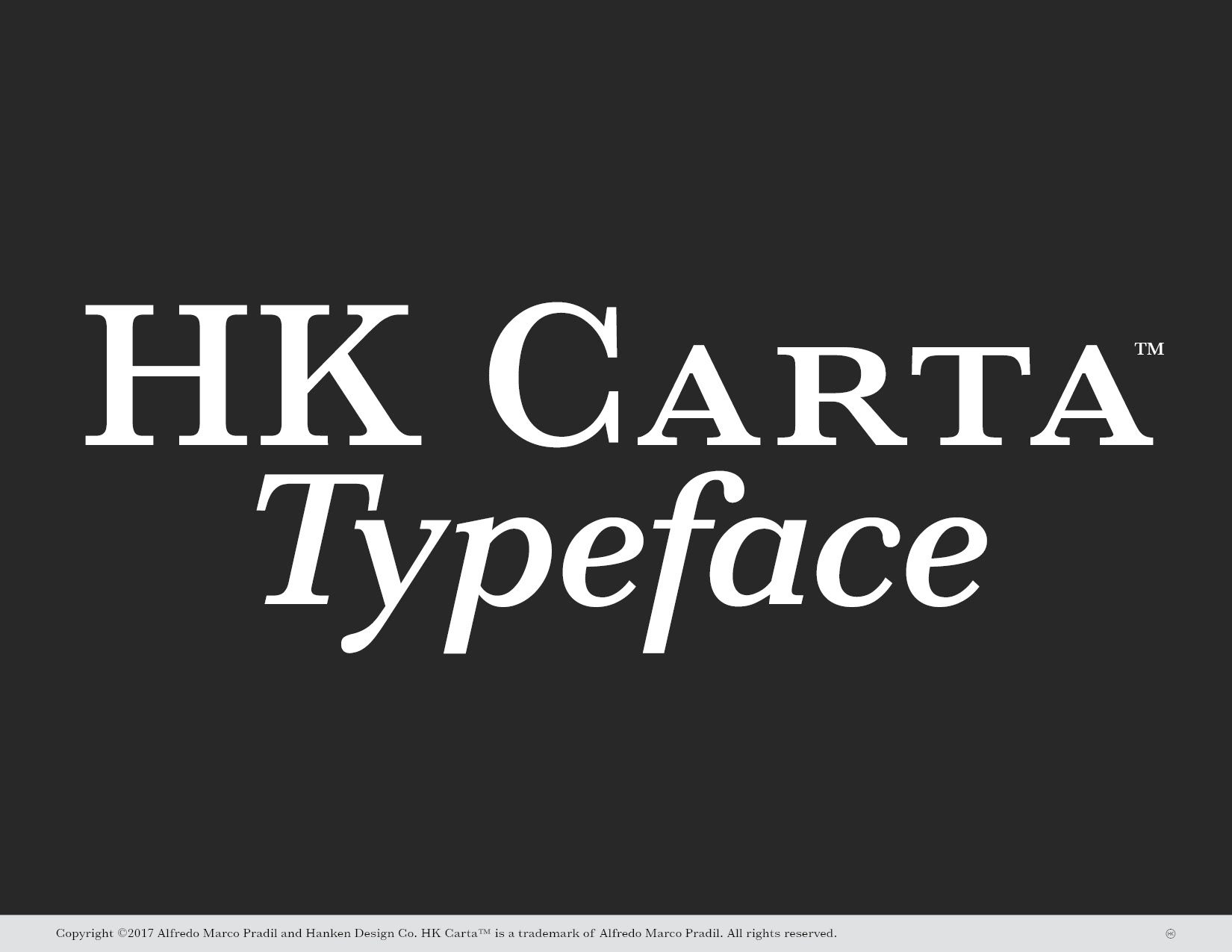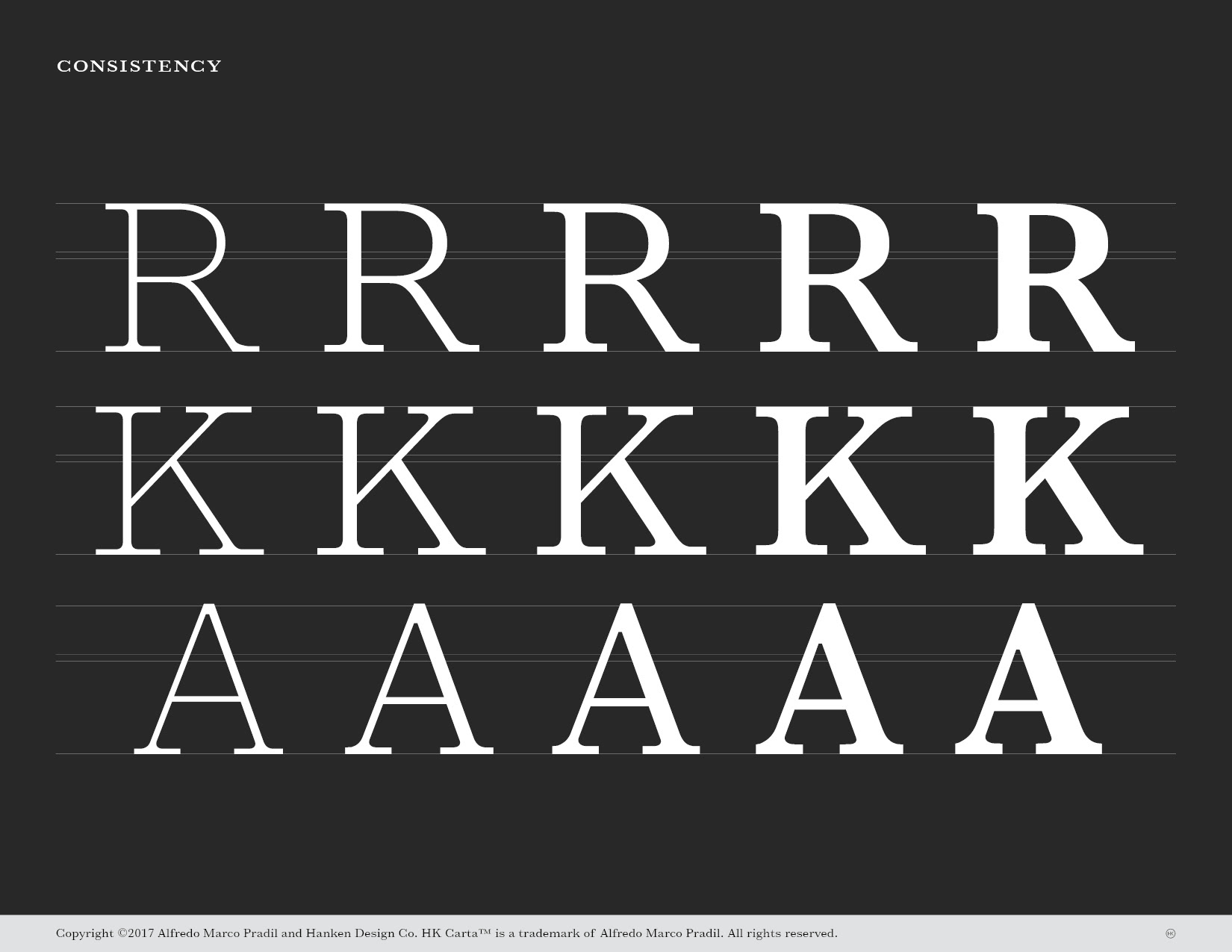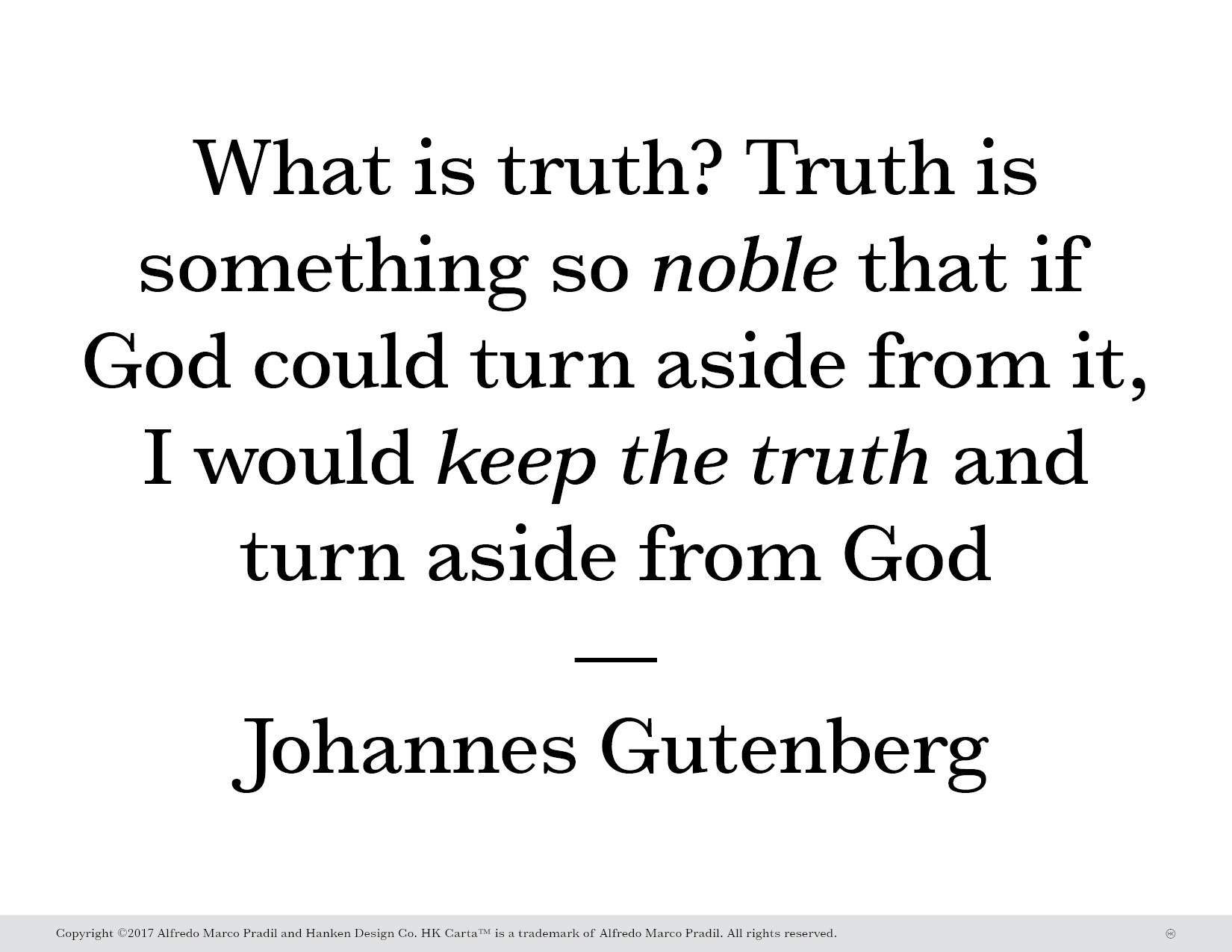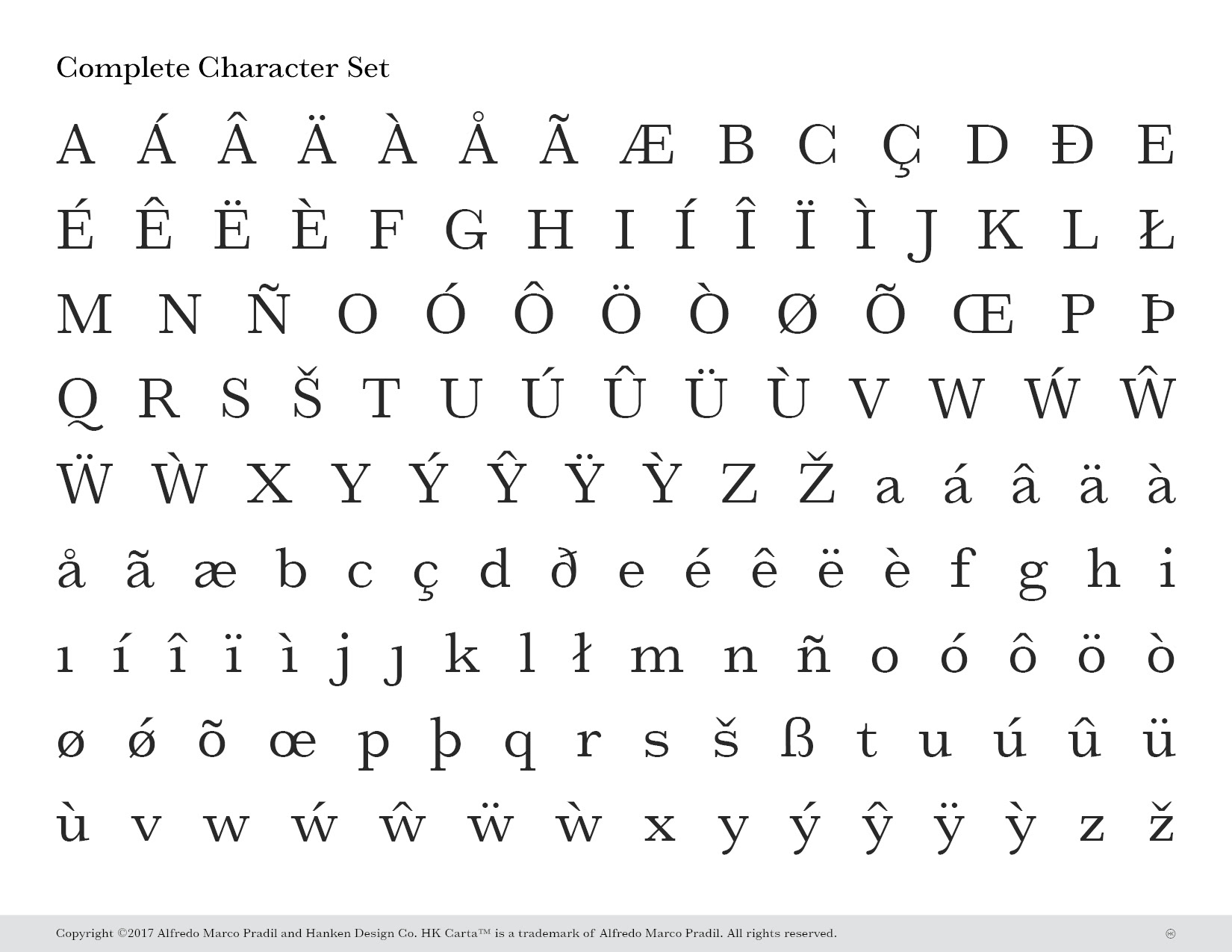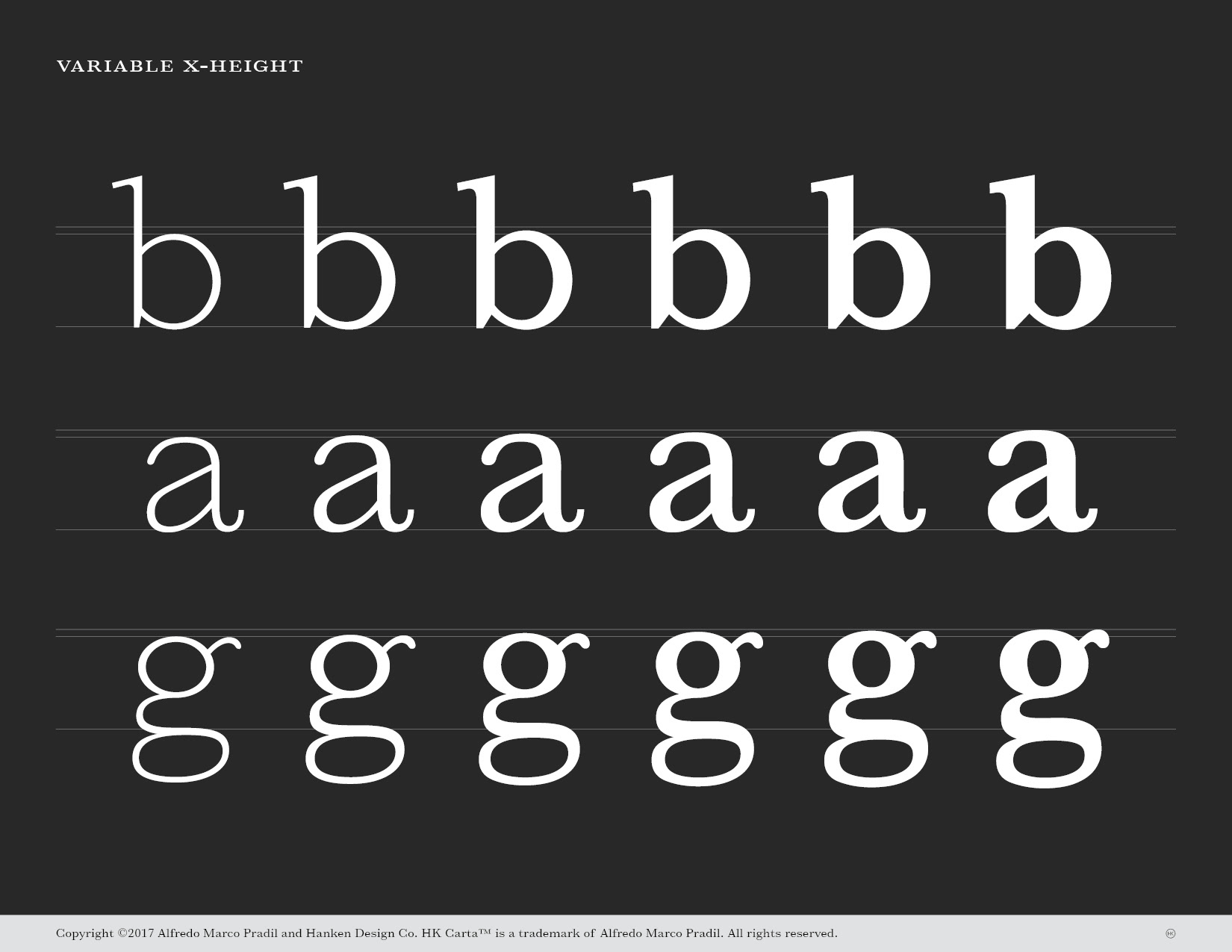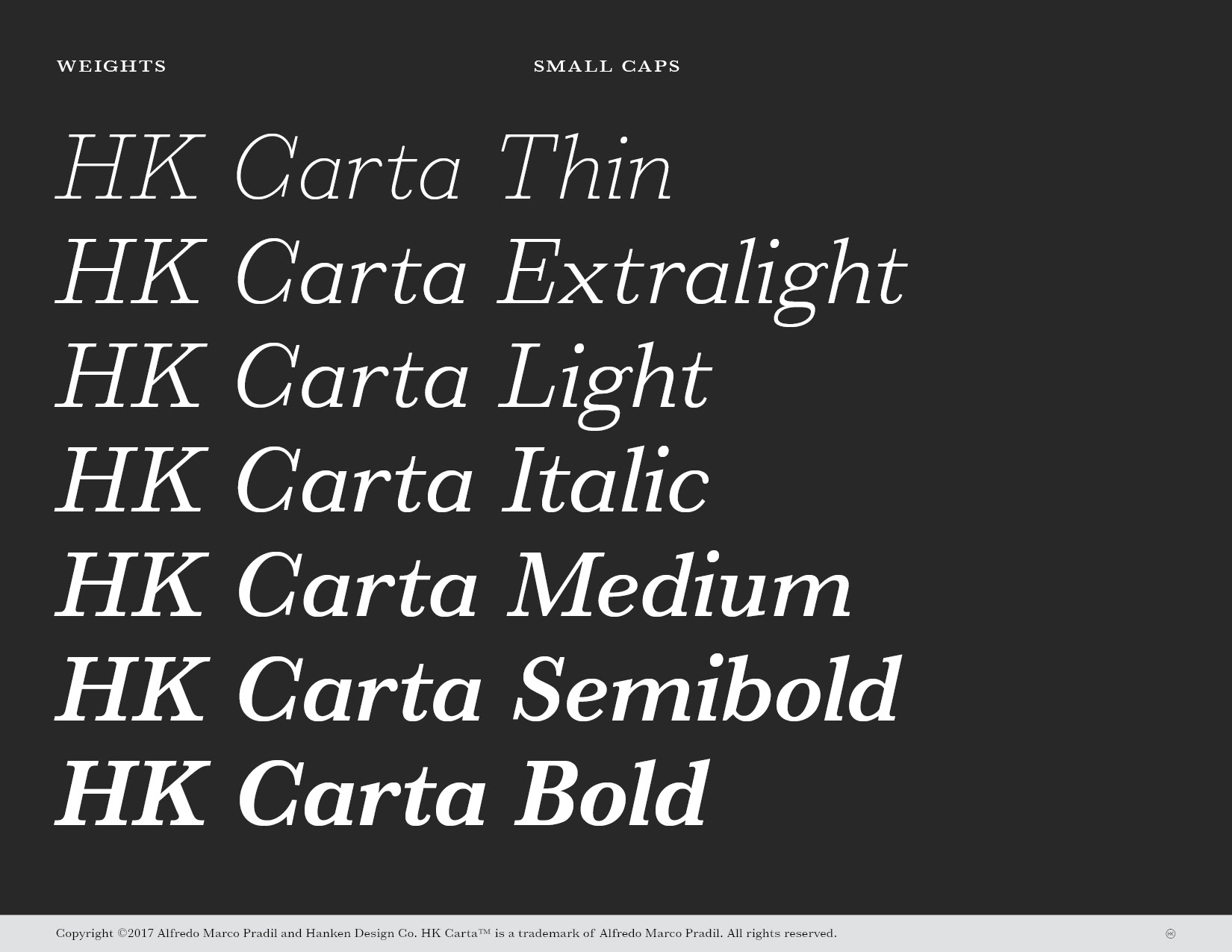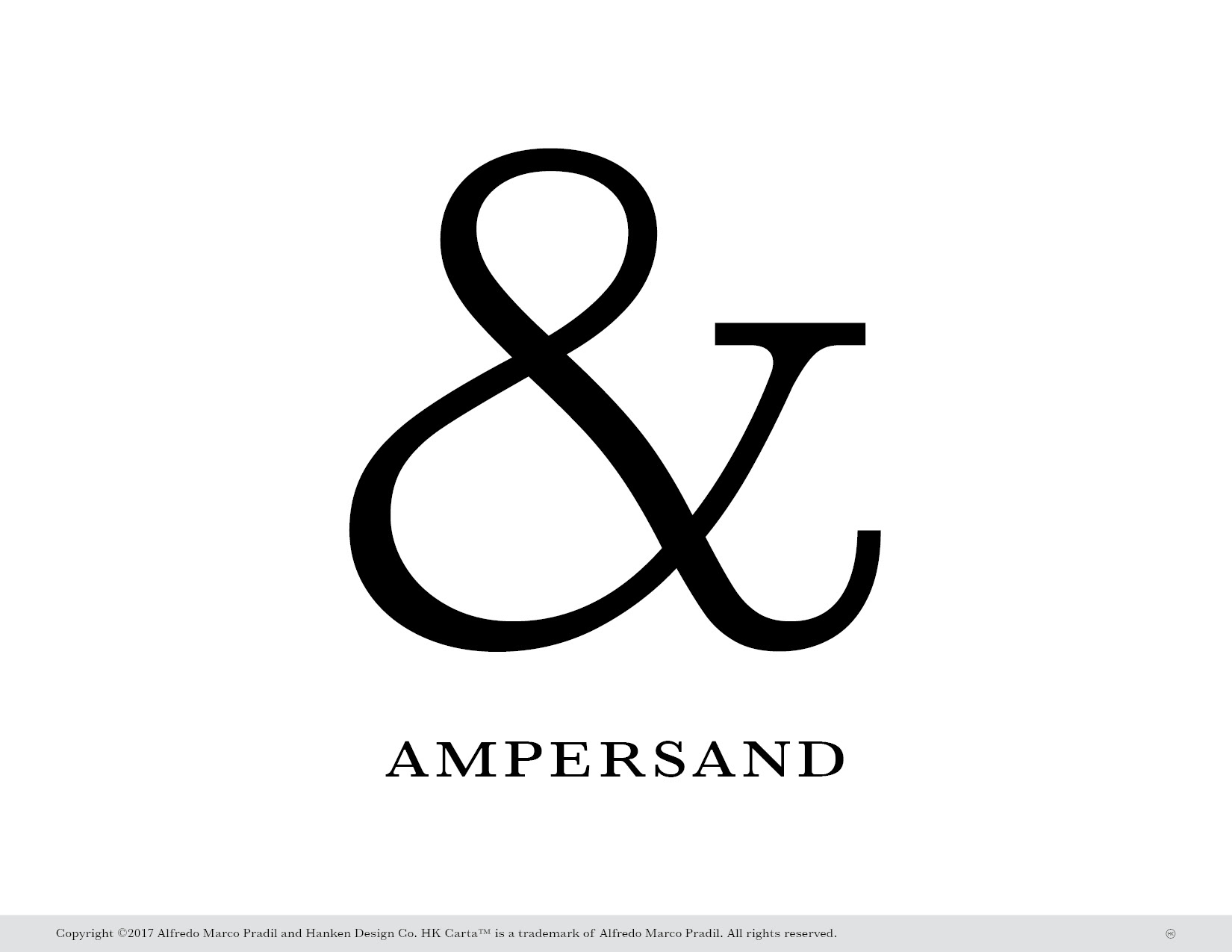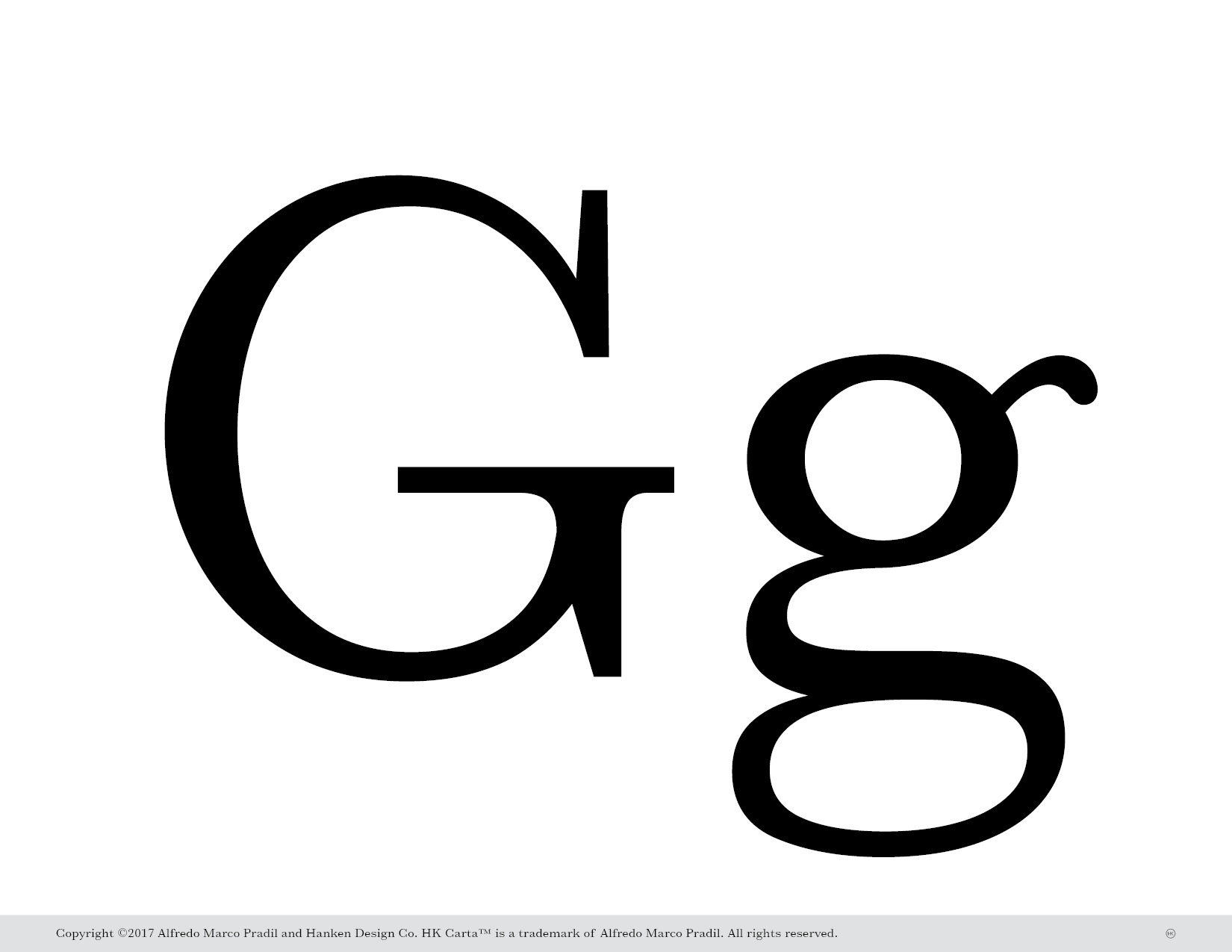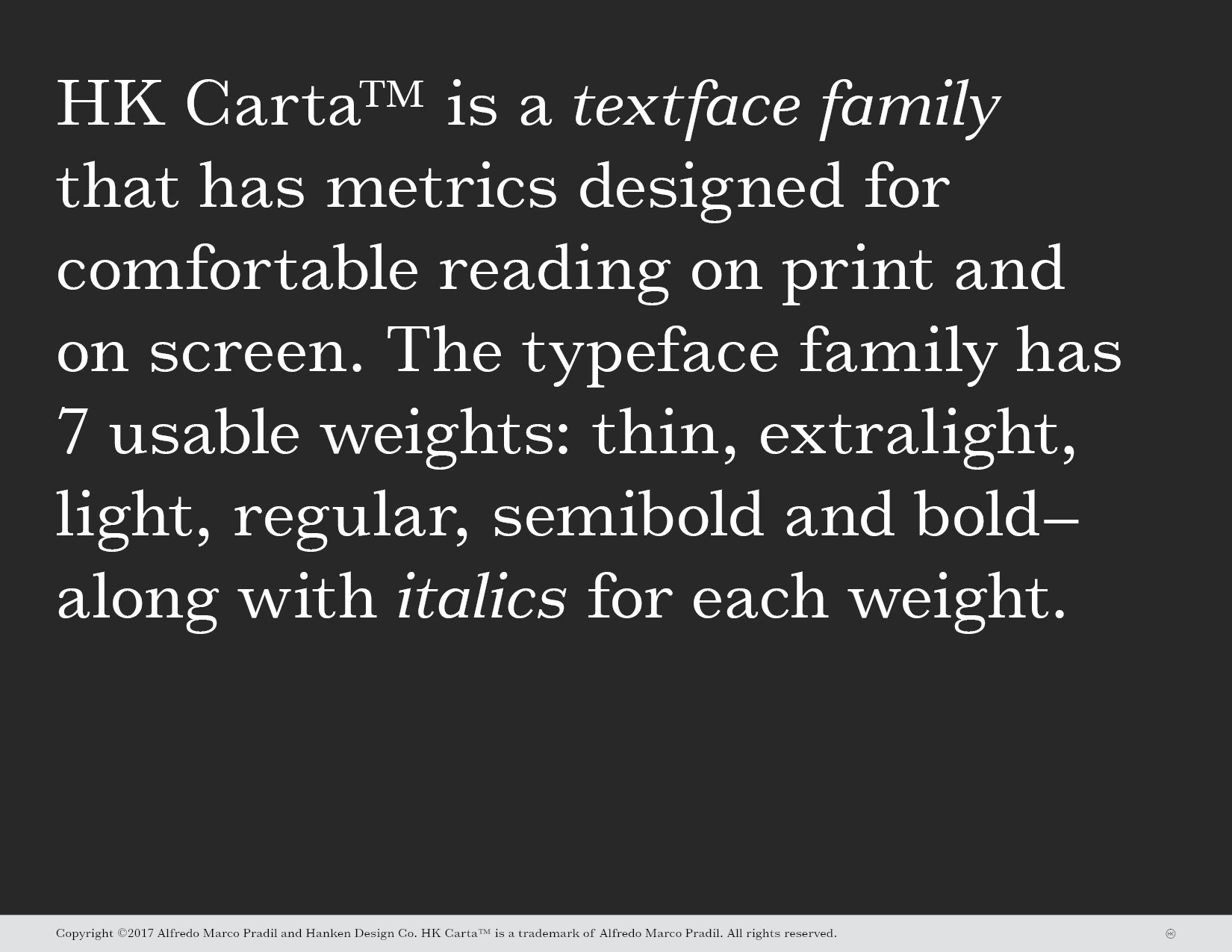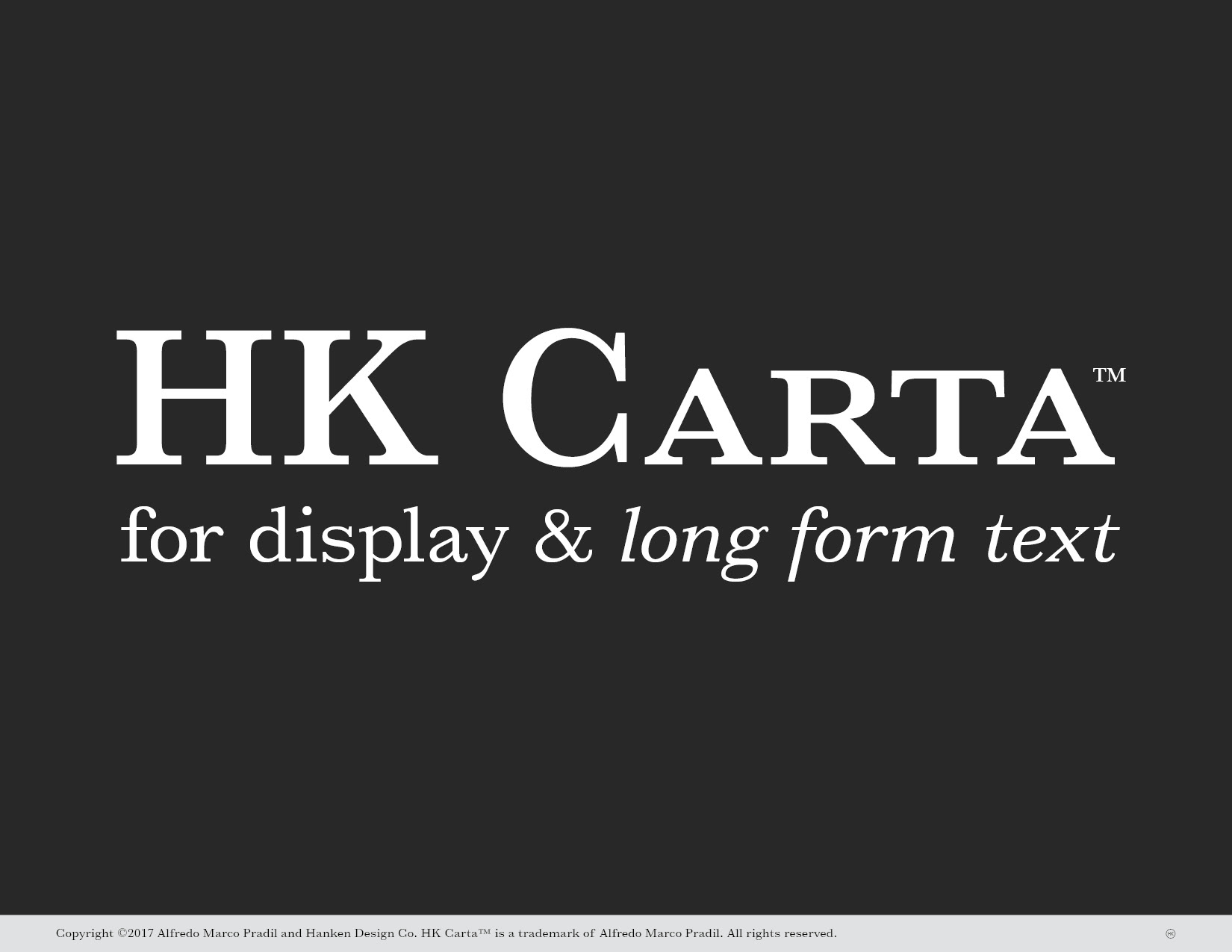
HK Carta Typeface
HK Carta™ is a textface family that has metrics designed for comfortable reading on print and on screen. The typeface family has 7 usable weights: thin, extralight, light, regular, semibold and bold. Italics were not included in the HK Carta™ typefamily as they are still being developed.